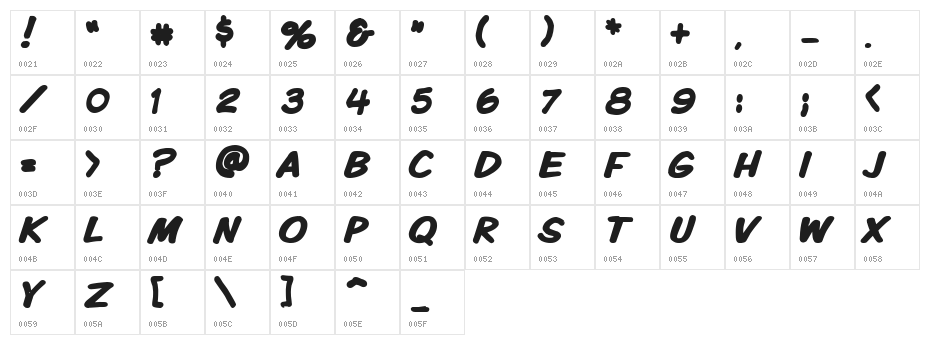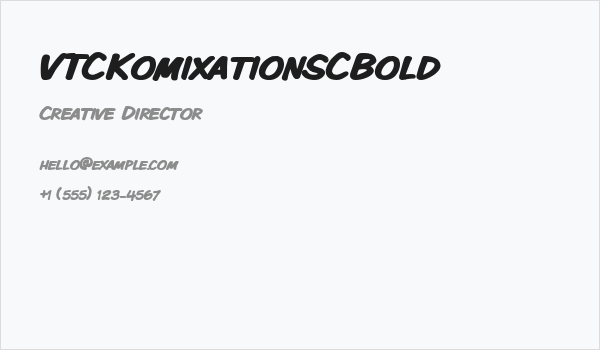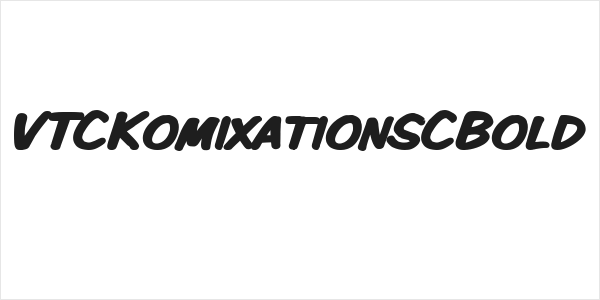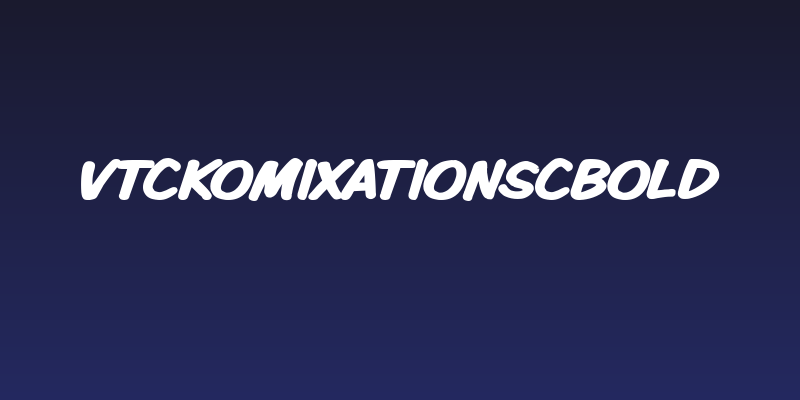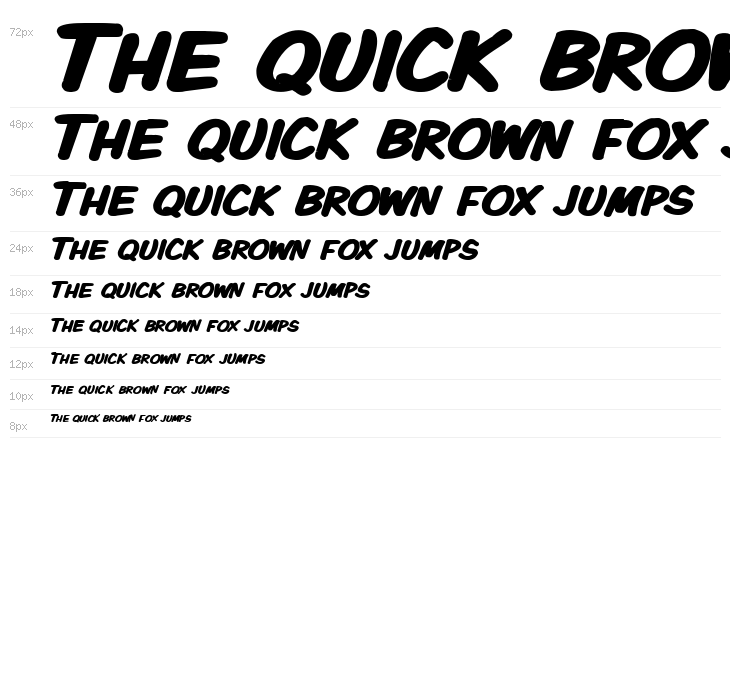
VTCKomixationSCBold Font
VTCKomixationSCBold Description
This font features a bold, playful style with rounded edges and a slightly slanted orientation, giving it a dynamic and energetic appearance. The characters are thick and robust, with a consistent stroke width that enhances readability. The uppercase and lowercase letters maintain a uniform look, while the numbers and special characters complement the overall design with their bold and expressive forms. This font exudes a sense of fun and creativity, making it ideal for projects that require a lively and engaging typeface.
| Overall Style | Playful, Energetic |
| Proposed Projects | Perfect for comic books, children's books, playful branding, and eye-catching posters. |